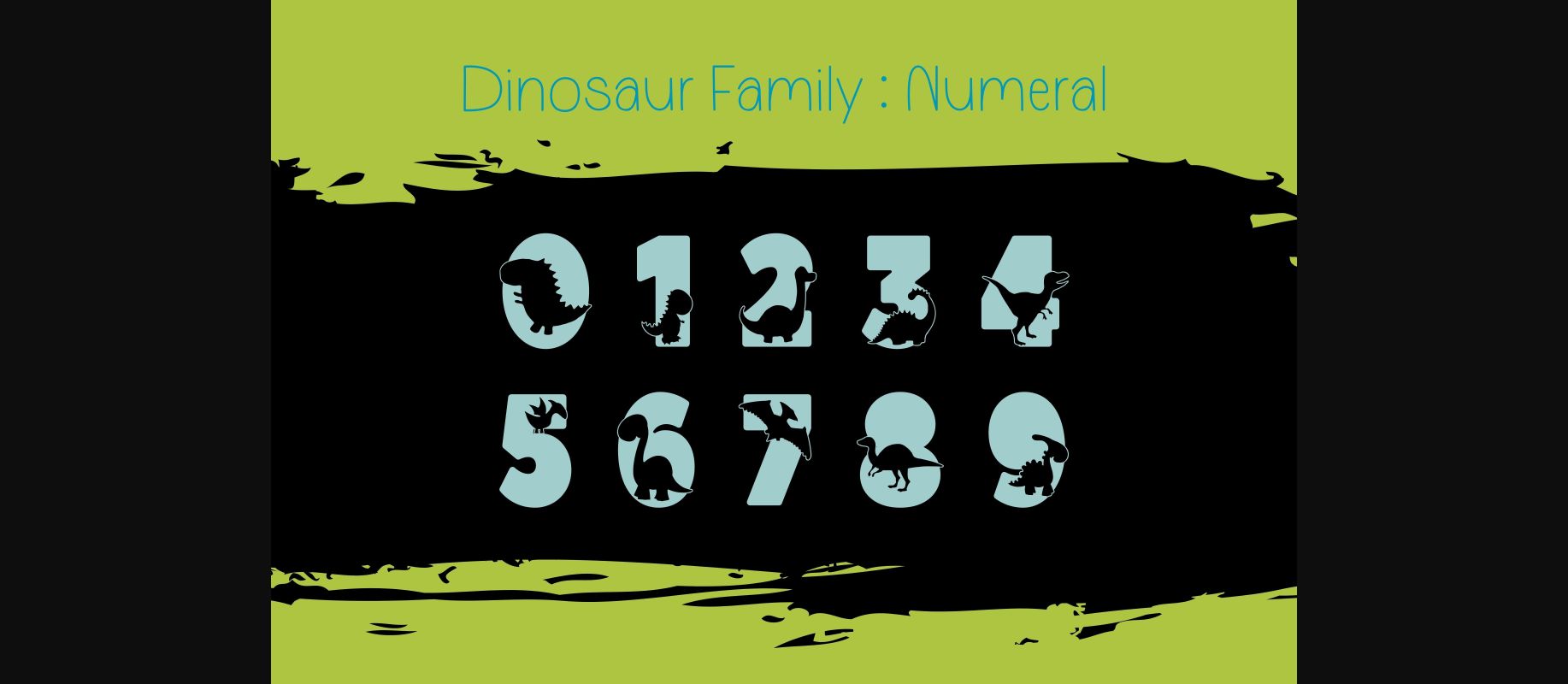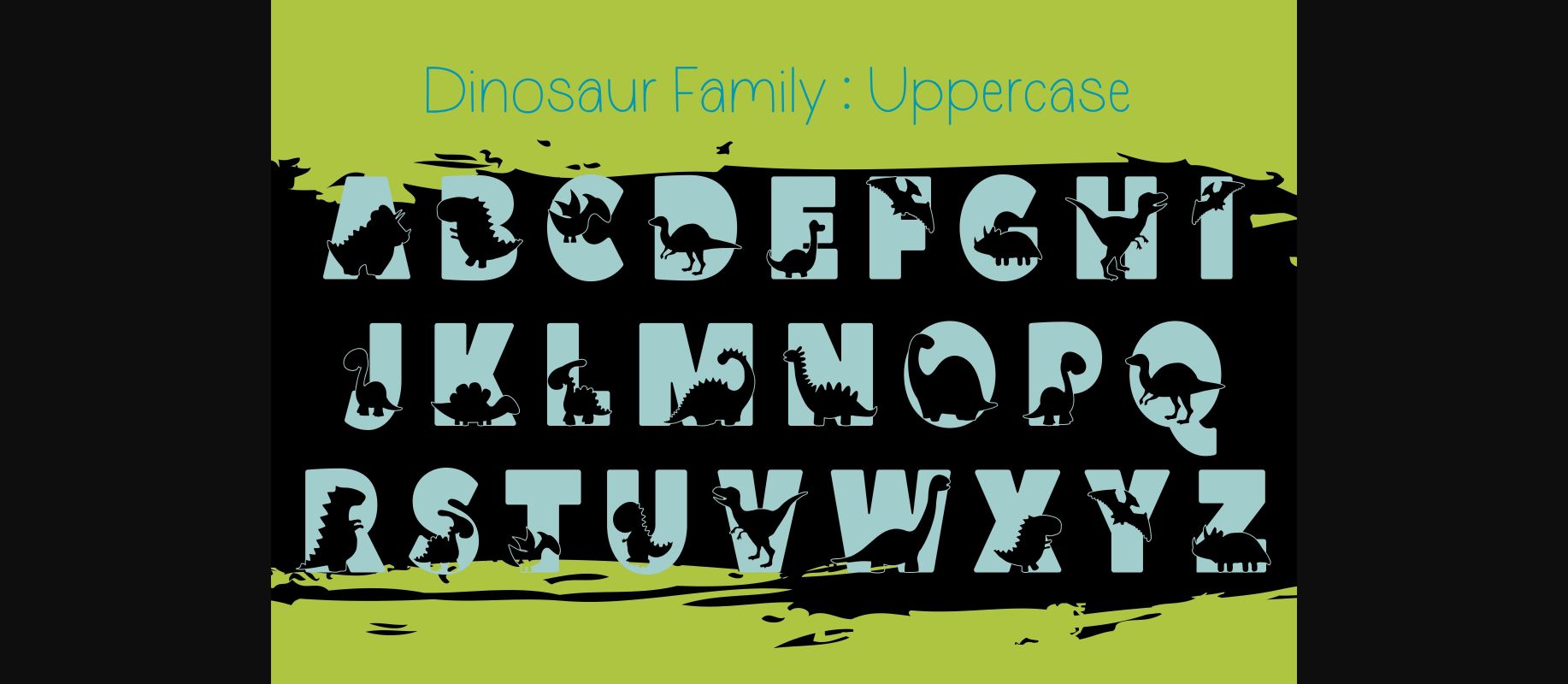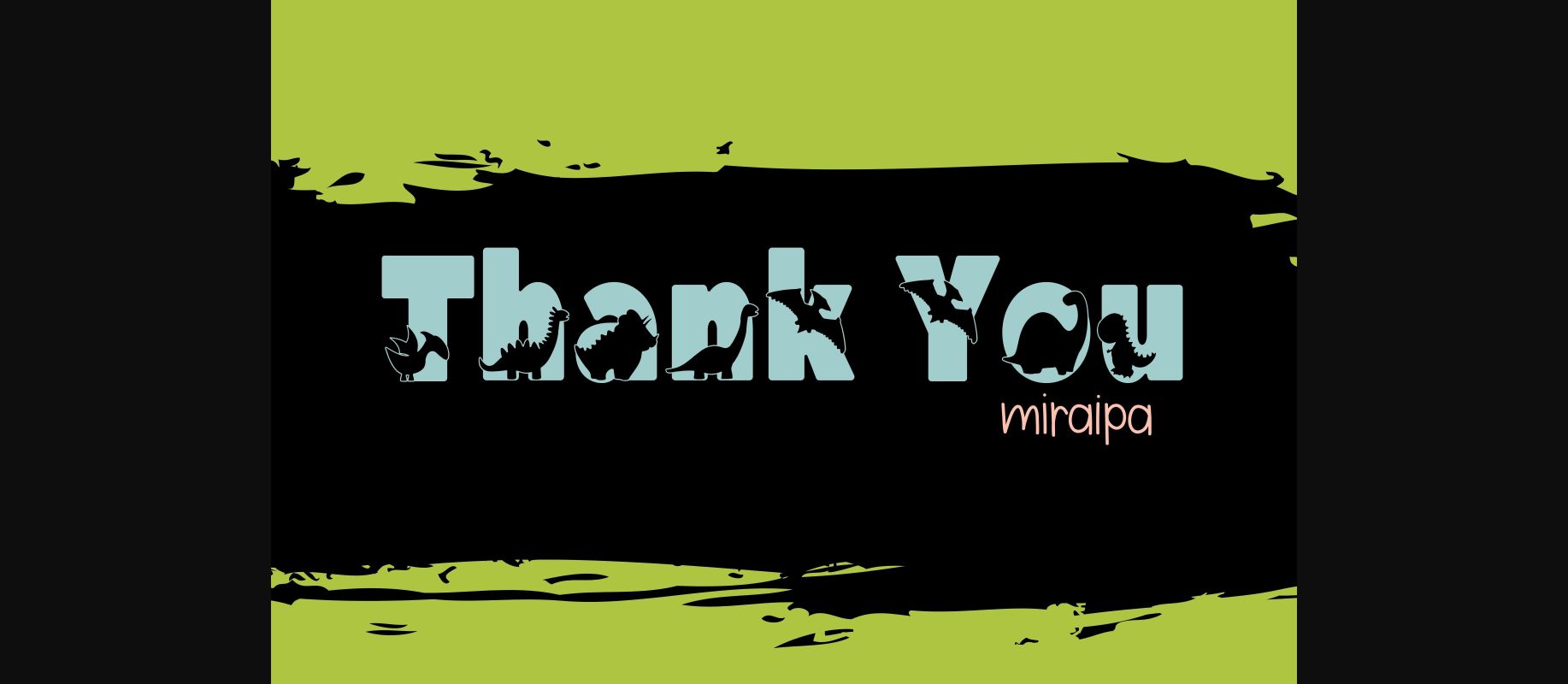
Dinosaur Family Font
About Dinosaur Family Font
Dinosaur Family is a display font designed in a lovely and playful style. It’s cool and lovely for your unique projects which these character would be awesome into variety of projects such as school projects, kid’s clothing, child-related designs, poster, baby shower cards, birthday invitation cards greeting cards or anything that needs a friendly and cute touch.